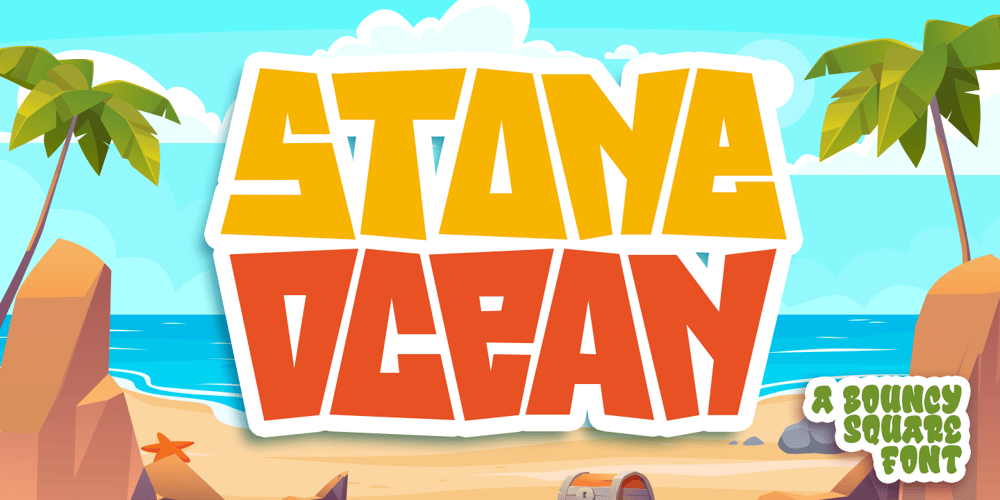
Stone Ocean
Stone Ocean font
Stone Ocean Font Family was designed by Bangkit Tri Setiadi and published by Blankids. Stone Ocean contains 2 styles and family package options. Introducing of our new product the name is Stone Ocean a Bouncy Square Font, Stone Ocean inspired by Playful style with a fun theme very good for tropical, kids and playful theme design.FEATURES : Uppercase Lowercase Number Punctuation Multilingual PUA Encode Opentype